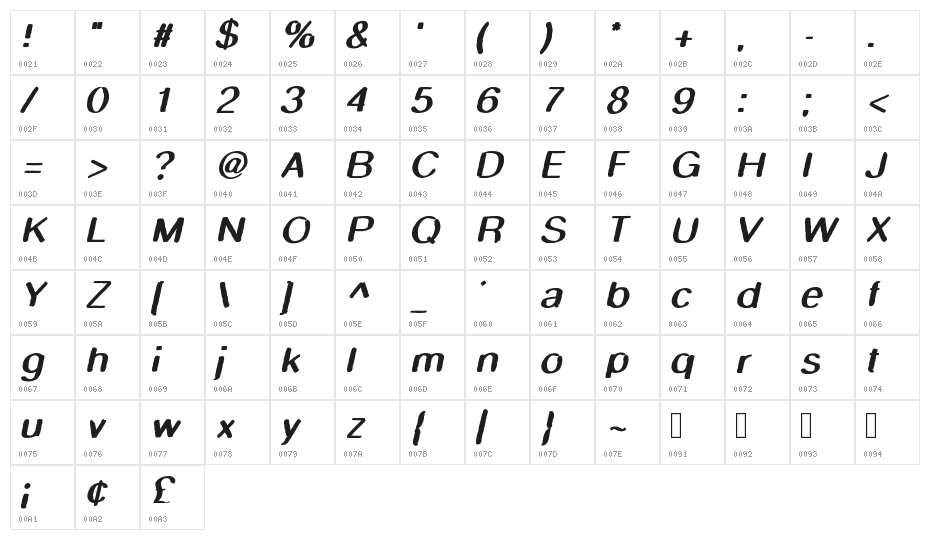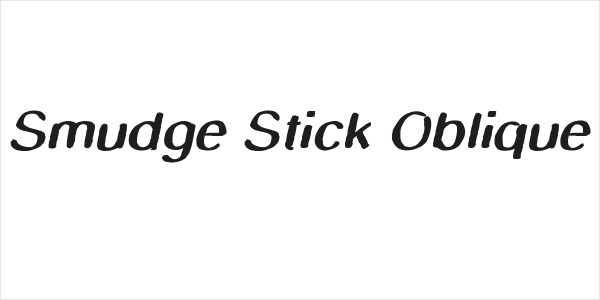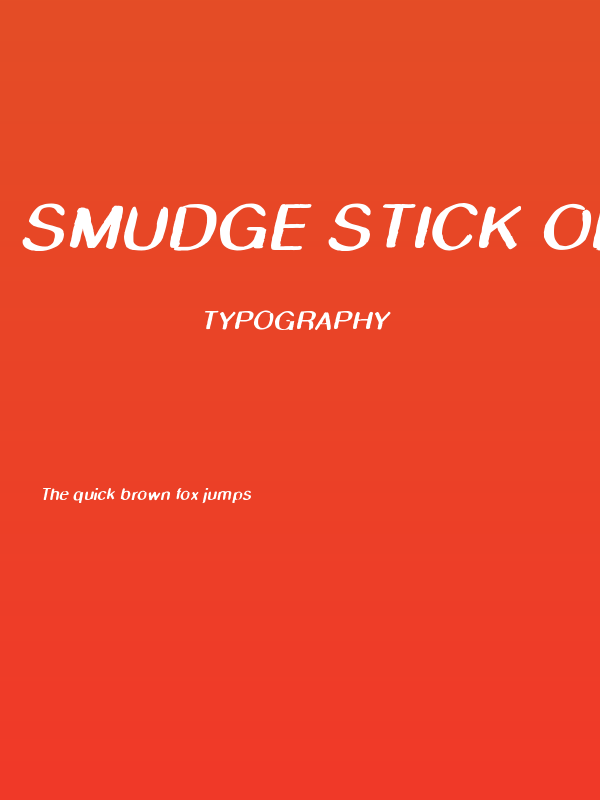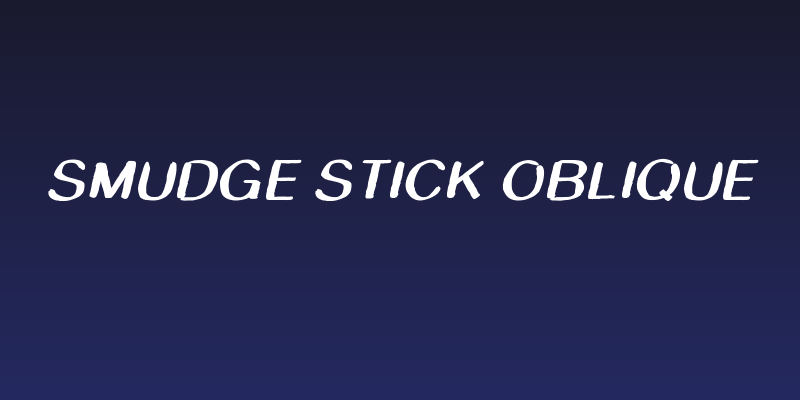
Smudge Stick Oblique Font
Smudge Stick Oblique Description
This font features an oblique style with a hand-drawn, textured appearance, giving it a casual and artistic feel. The strokes are uneven, adding a dynamic and organic quality to the characters. Uppercase and lowercase letters maintain a consistent slant, enhancing the font's cohesive look. The numbers and special characters follow the same stylistic approach, ensuring uniformity across all glyphs. The font's playful and informal nature makes it suitable for creative projects that require a personal touch. Its unique texture and slant make it stand out, providing a distinct visual identity.
| Use Case | Headlines, Logos, Artistic projects |
| Proposed Projects | Ideal for artistic projects, posters, invitations, and branding that require a personal, creative touch. |